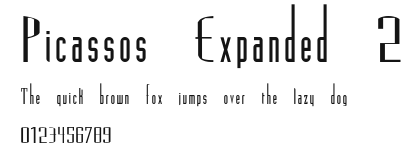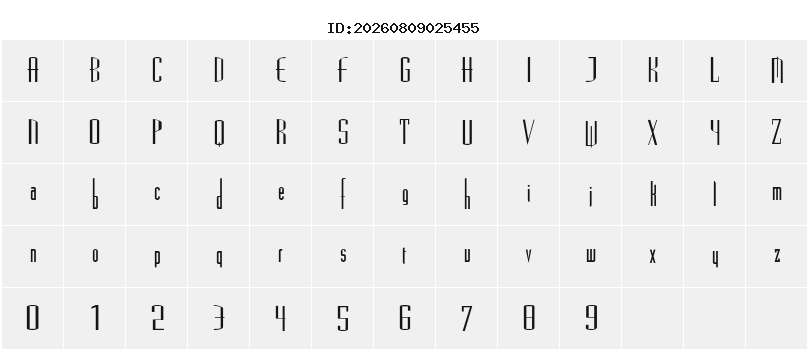
Picassos Expanded 2 Preview
• Font Name: Picassos Expanded 2
• Full Font Name: Picassos Expanded 2
• PostScript Name: Picassos Expanded 2
About Picassos Expanded 2.ttf
Picassos Expanded 2.ttf is a modern, elegant sans-serif font designed for ultimate readability and visual harmony. Perfect for branding, headlines, web design, and print materials.